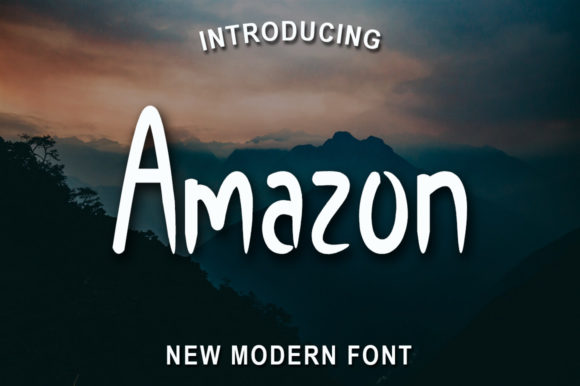
Welcome to the world of Amazon Font, the ultimate sans serif font meticulously crafted for your creative endeavors! You'll be spellbound by its sharp, contemporary lines, designed to seamlessly flow and gracefully guide your readers through your content.
Immerse yourself in a symphony of letters, each meticulously shaped to enhance legibility and invite your audience to delve into your words. With Amazon Font, learning and exploration become effortless, making it the perfect choice for educational materials, captivating narratives, and informative articles.
But that's not all! Amazon Font transcends the boundaries of the classroom, gracefully adorning logos with a touch of elegance and imbuing movie posters with an air of cinematic allure. Its versatility knows no bounds, making it the perfect companion for watermarks, branding materials, and any project that yearns for a touch of sophistication.
Step into the realm of design excellence with Amazon Font. Let its crisp, modern lines ignite your creativity and transform your words into captivating masterpieces. Embrace the beauty of simplicity and experience the transformative power of typography today!